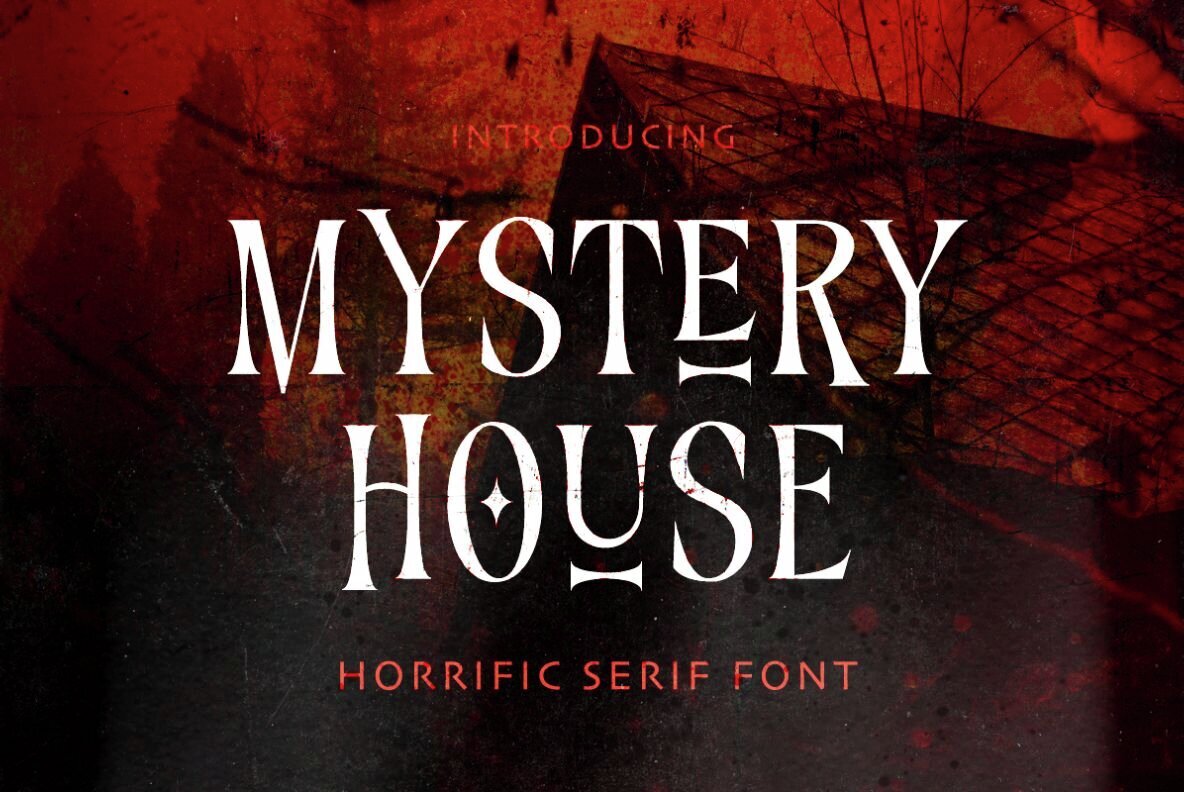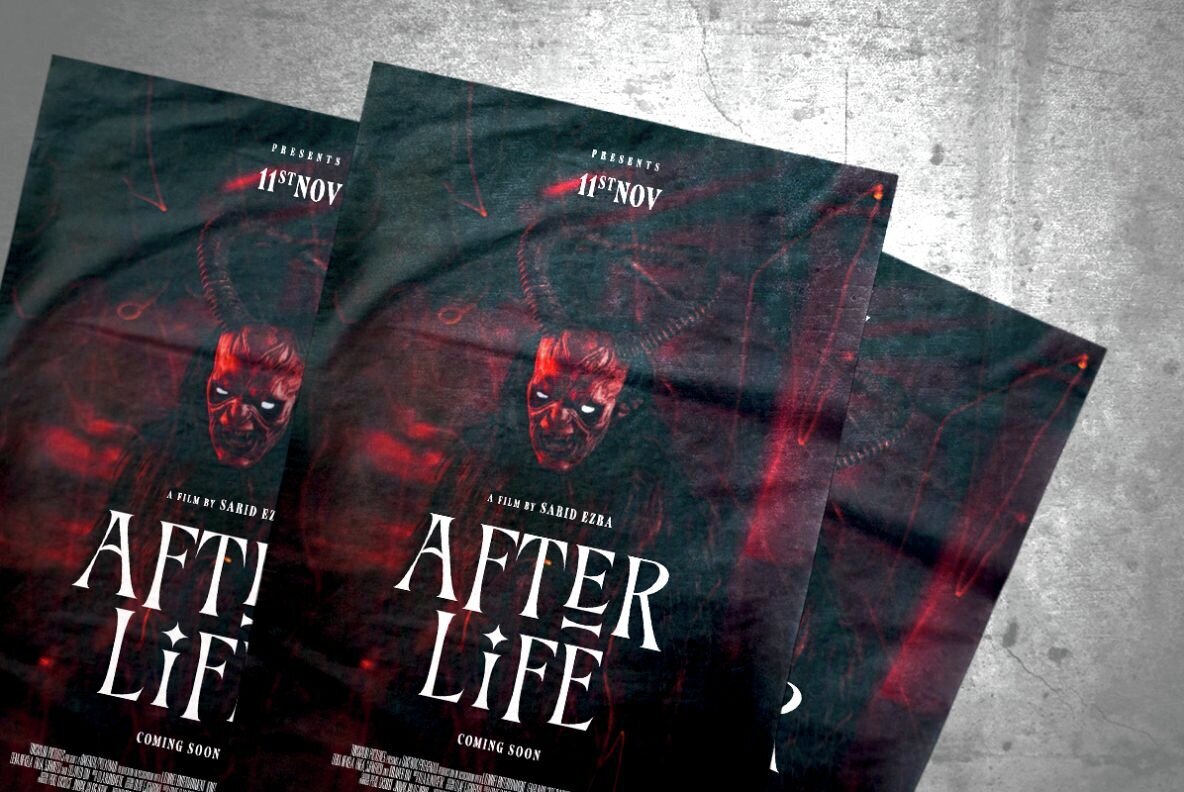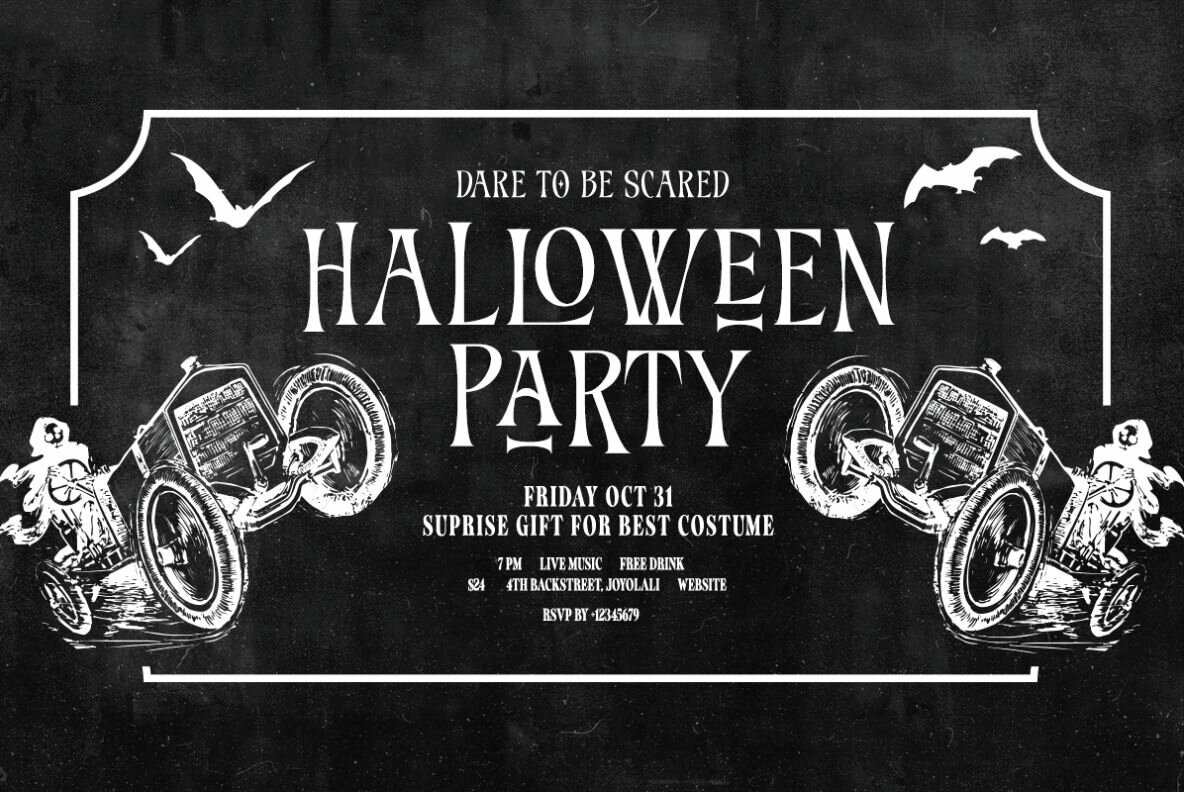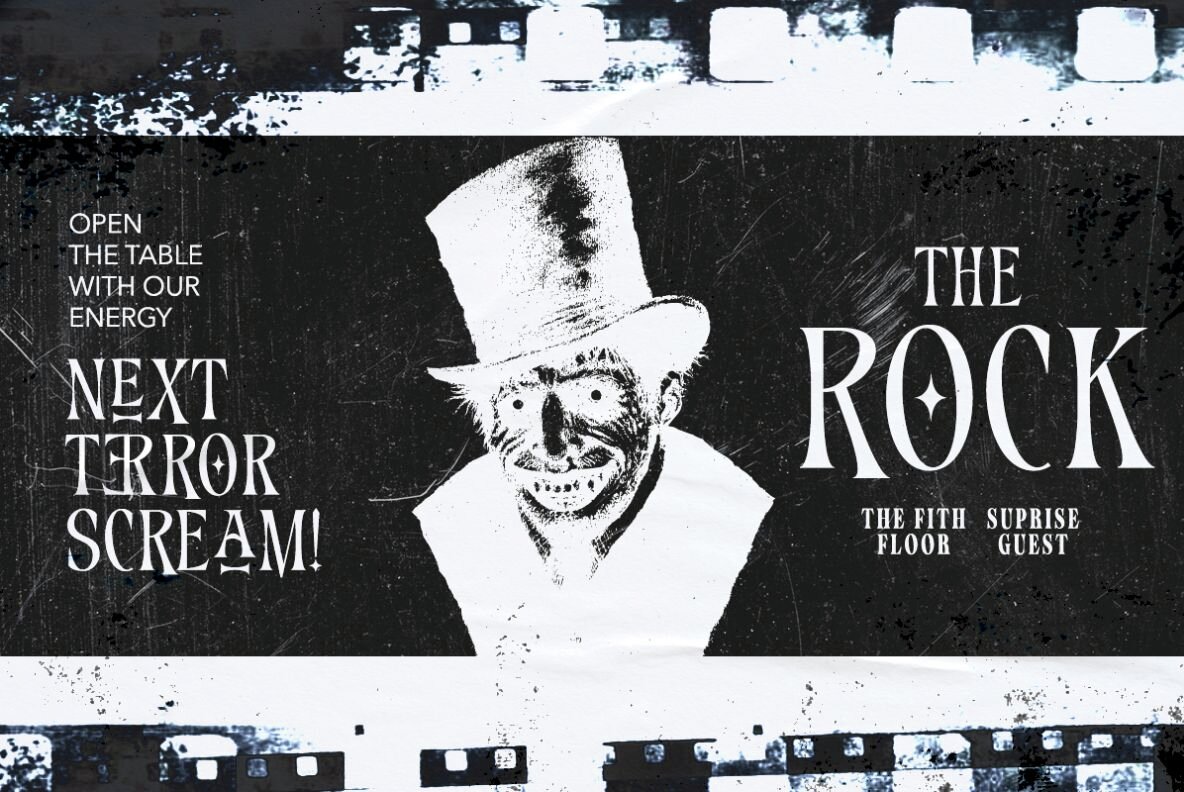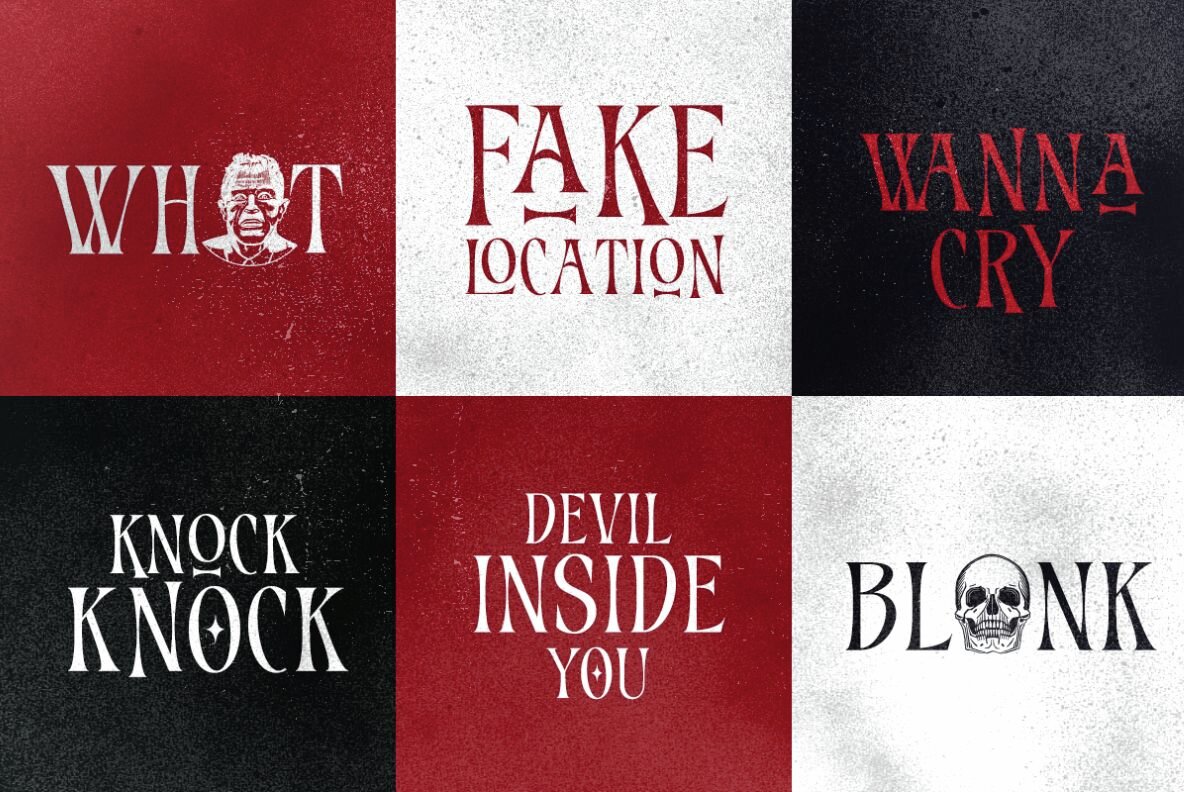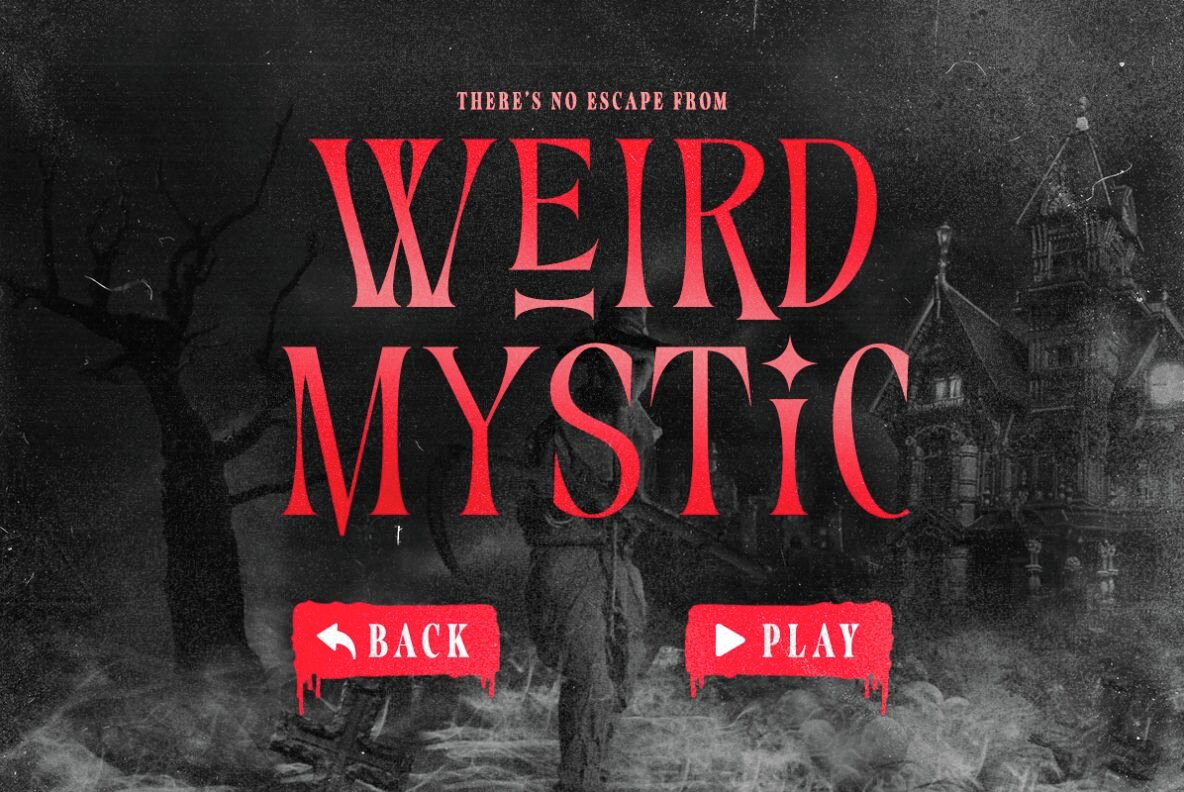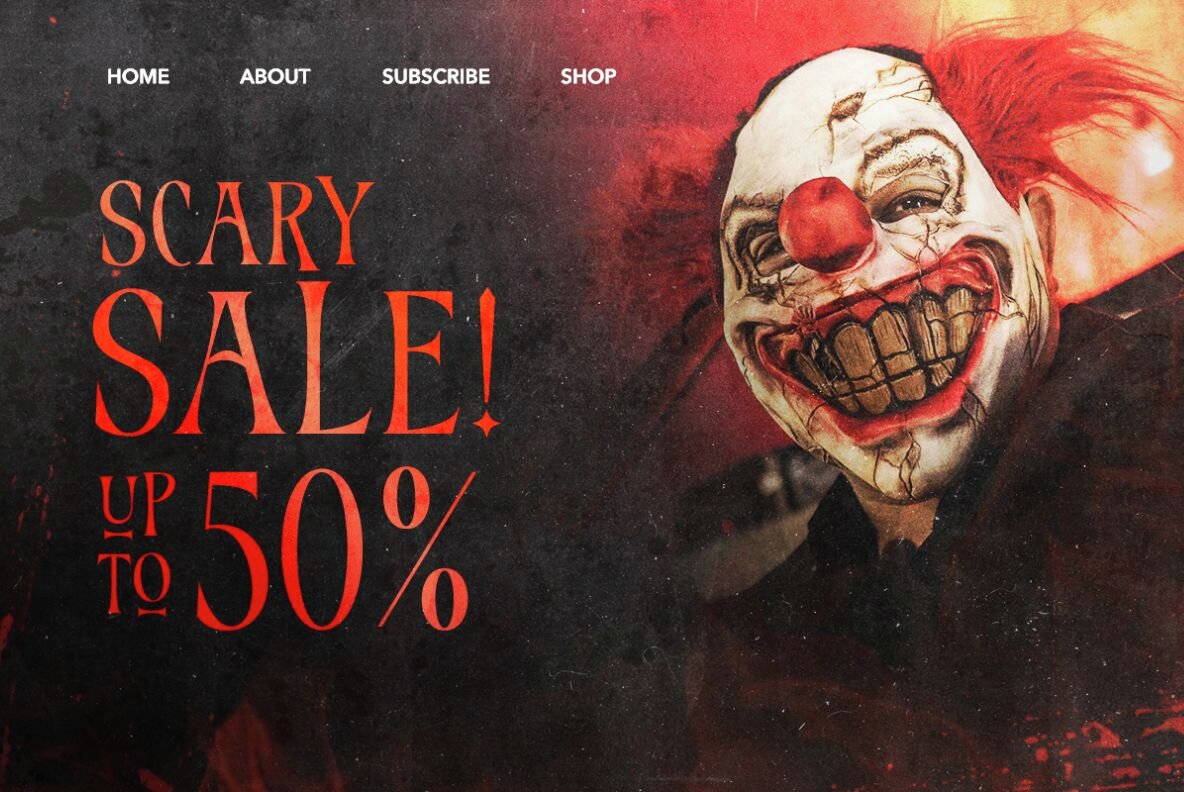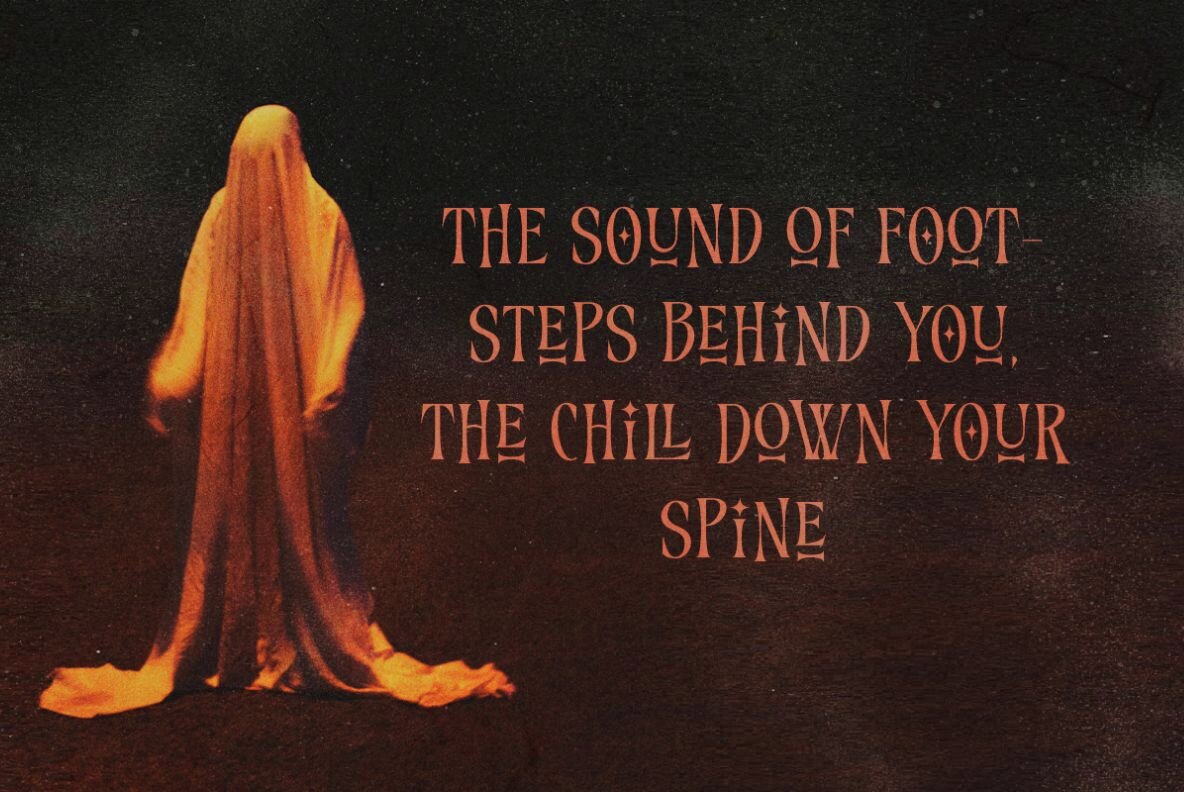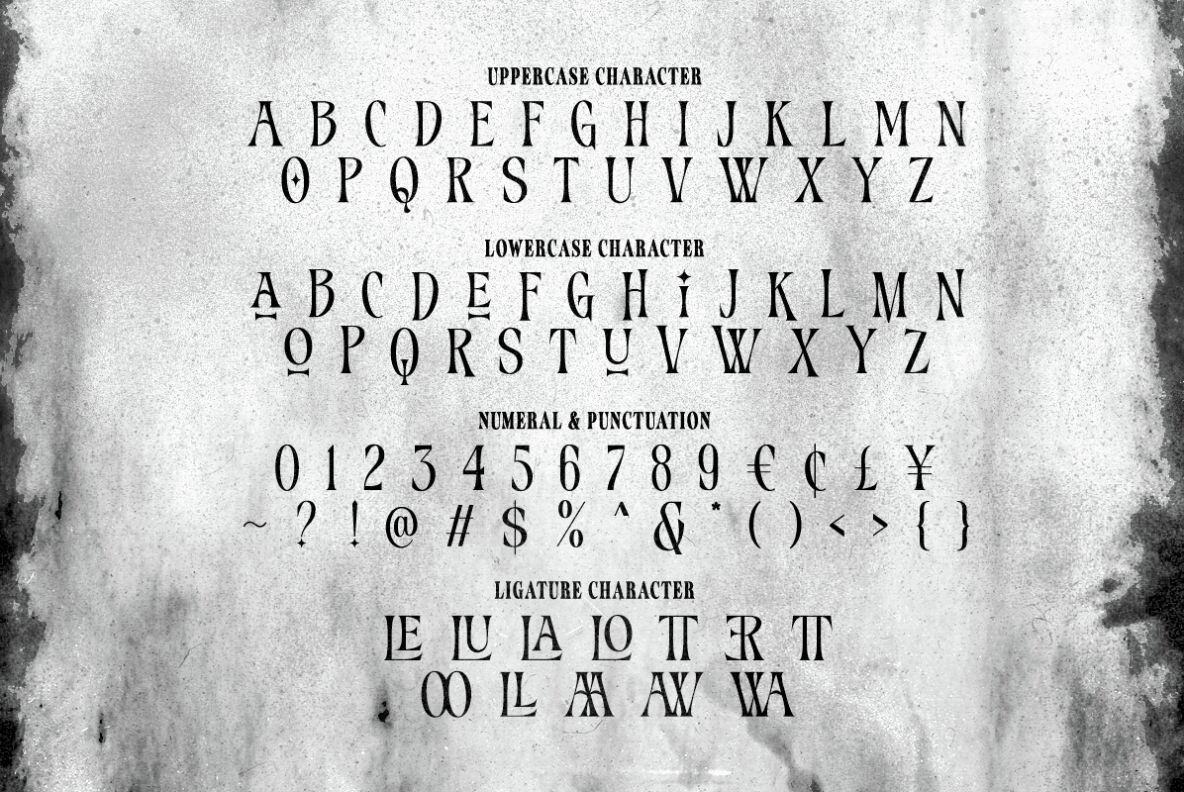
Mystery House Font
Mystery House Regular
Mystery House is a versatile serif font infused with a twist of fun and intrigue. Its unique design makes it ideal for projects that require a spooky aesthetic, making it an excellent choice for horror-themed designs. The combination of uppercase and lowercase letters offers a variety of stunning visual effects, while the included ligatures can enhance your designs with a more elaborate look.
Perfect for a range of applications, Mystery House shines in movie posters, Halloween projects, and book covers. Beyond horror-themed projects, it also brings elegance and playfulness to fancy and fun designs. Additionally, this font supports multiple languages, broadening its usability for various design needs.